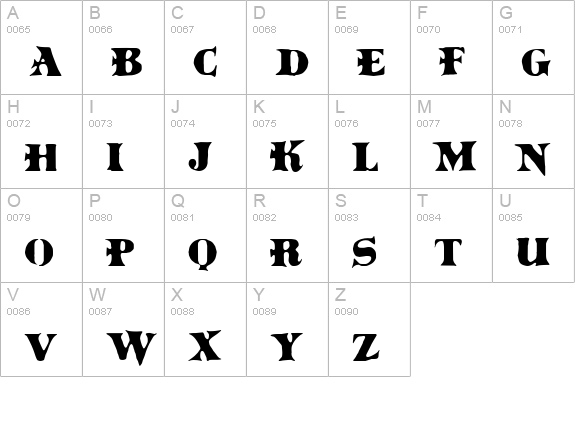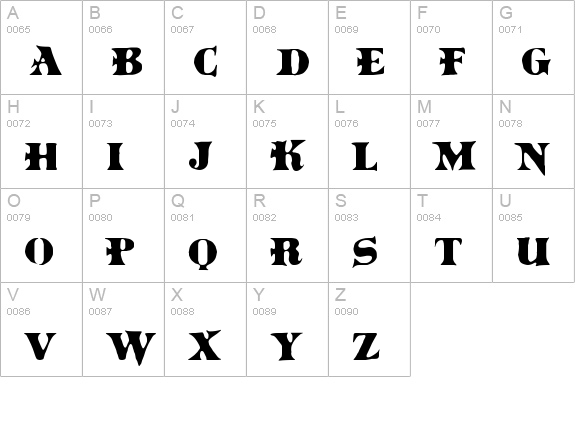
BoinkoMatic Font Details
BoinkoMatic font is a fun and playful typeface that adds a touch of whimsy to any project. With its unique and quirky design, BoinkoMatic is perfect for creating eye-catching headlines, posters, and social media graphics. The font features bold, rounded letters with a slightly uneven baseline, giving it a hand-drawn feel that is both charming and versatile. What sets BoinkoMatic apart is that it is not only stylish and creative, but also free to use for personal and commercial projects. This means that you can download and start using this delightful font without any cost or restrictions. BoinkoMatic is available for free download exclusively at FontsMarket.com, making it easily accessible for designers, artists, and creatives looking to add a touch of playfulness to their work. Add a dash of fun to your designs with BoinkoMatic font today!